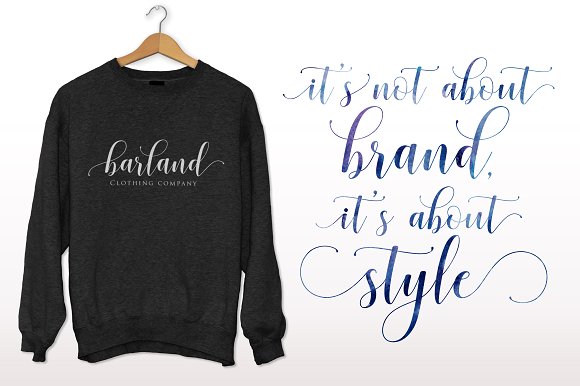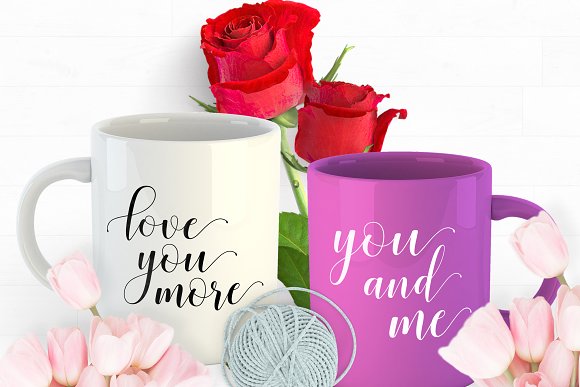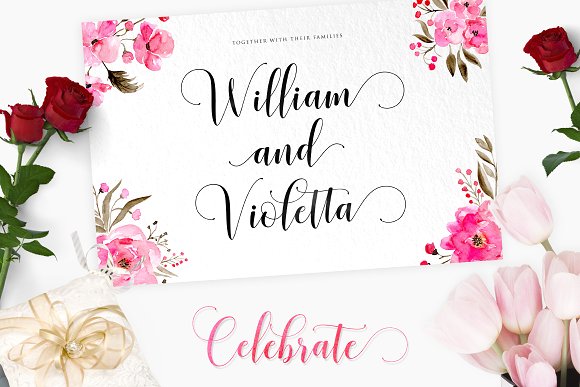
Introduction to Honilad Font
As a designer, have you ever found yourself stuck in front of a blank canvas, struggling to bring your creative vision to life? You’ve poured your heart and soul into a project, only to realize that the right typography is missing. That’s where the perfect design resource comes in – a font that can elevate your work and make it truly shine.
Enter the Honilad Font, a unique blend of classic and modern design that’s sure to captivate your audience. With its imperfect strokes and natural feel, this font is perfect for designers looking to add a touch of authenticity to their creative projects. And the best part? It’s a high-quality, free download that’s available with a transparent background, making it easy to integrate into any design.
Whether you’re working on a branding project, a website, or a social media campaign, the Honilad Font is an invaluable resource that’s sure to take your design to the next level.
Key Features of Honilad Font
- High-quality font design with a transparent background, ideal for creative projects and design resources.
- Features a unique and stylish design, perfect for adding a touch of elegance to any creative project.
- Designed with a high resolution, ensuring crisp and clear text display, even at large sizes.
- Perfect for use in graphic design, digital art, and other creative pursuits where a high-quality font is essential.
Honest Review: Honilad Font
I recently stumbled upon the Honilad Font and I have to say, it’s been a game-changer for my creative projects. This design resource offers a high-quality, unique font that’s perfect for adding a touch of elegance to any project.
One of the standout features of the Honilad Font is its transparent background, making it easy to overlay on top of images or other design elements. This versatility is a huge plus for designers like me who value flexibility in their design resources.
- High-quality design with unique character
- Transparent background for easy overlaying
- Perfect for creative projects requiring a touch of elegance
- Not ideal for projects requiring a bold, playful font
- Some users may find the font too elegant for certain design styles
Overall, I’m really impressed with the Honilad Font. While it may not be suitable for every design project, it’s definitely a valuable addition to any designer’s toolkit. The free download option is also a huge bonus, making it easily accessible for designers on a budget.
The Honilad Font is ideal for creative projects that require a high-quality, free design resource. It’s commonly used in logos, brochures, and business cards. The font’s transparent background also makes it easy to use in combination with other design elements.
Comparison to Honilad Font: Oswald has a more geometric and modern feel compared to Honilad Font, which has a more vintage and elegant look. While Honilad Font is ideal for projects that require a touch of sophistication, Oswald is better suited for projects that require a clean and modern aesthetic.
Does the Honilad Font have a transparent background, making it suitable for logo design?
Yes, the Honilad Font has a transparent background, making it an excellent choice for logo design and other applications where a clear background is required. This feature allows designers to easily combine the font with other design elements, creating a seamless and professional-looking design.